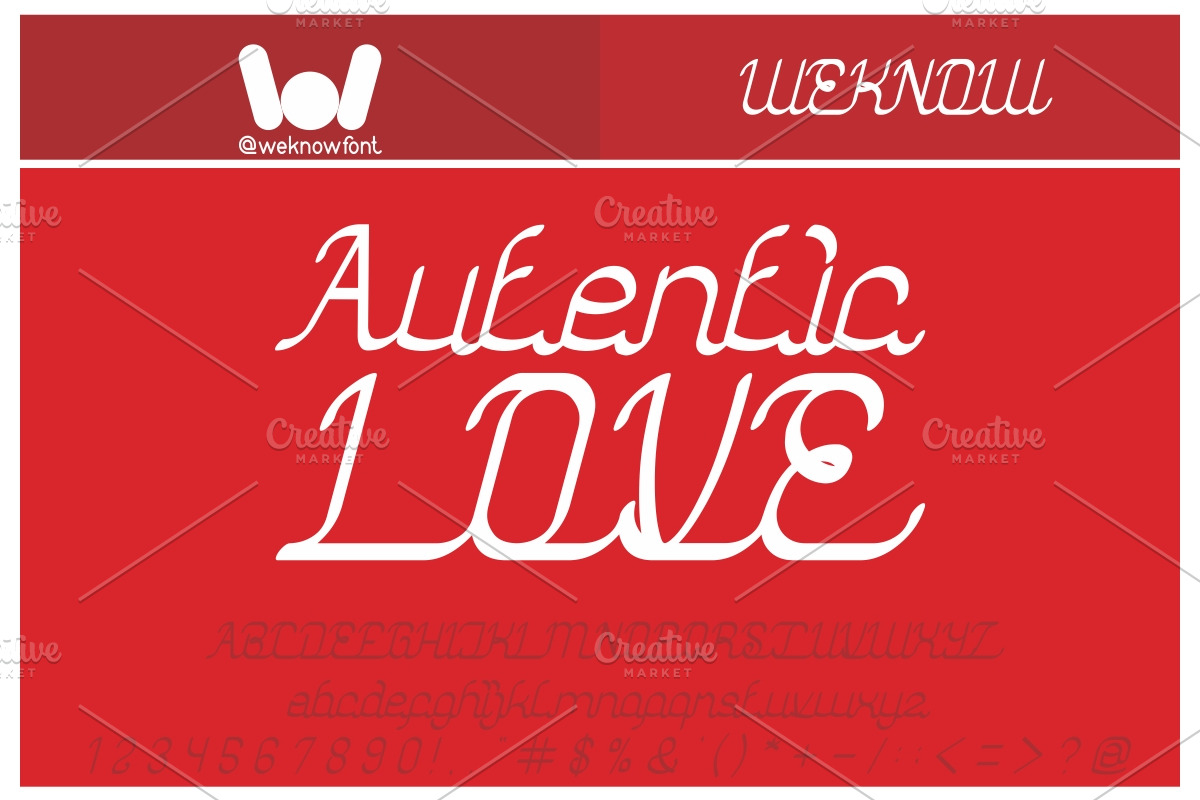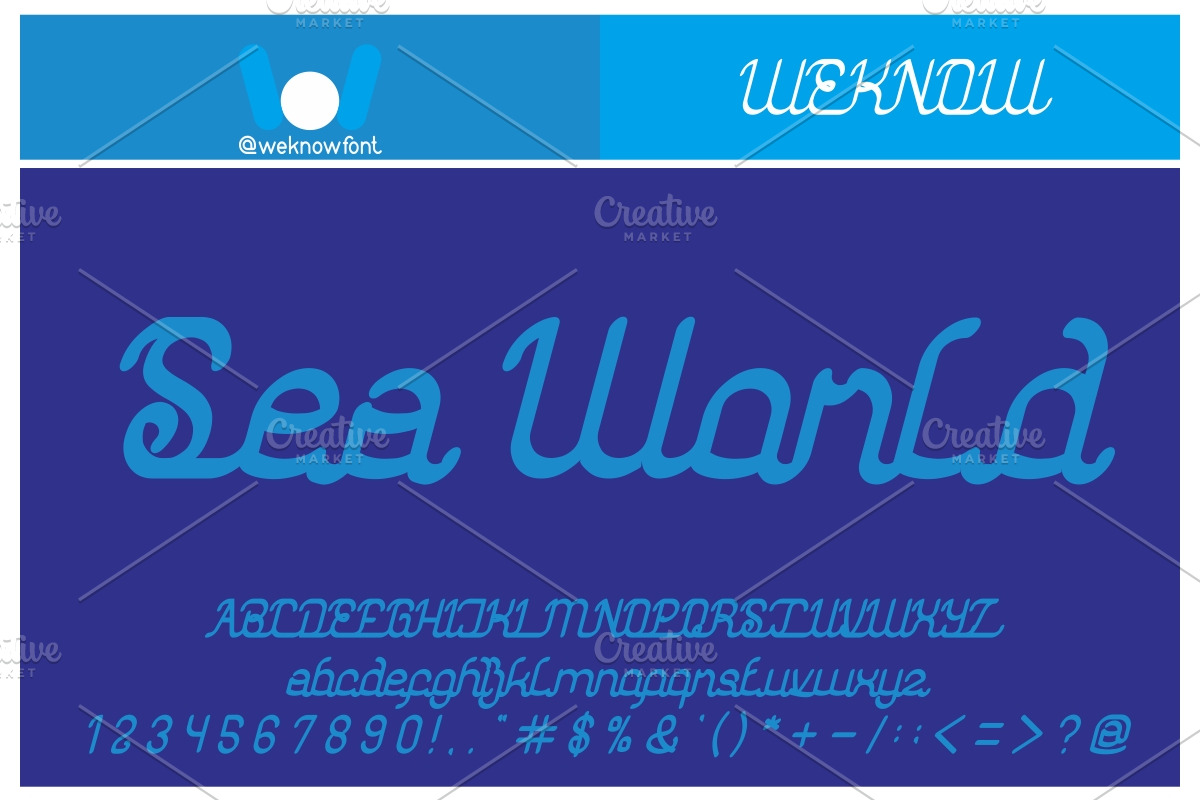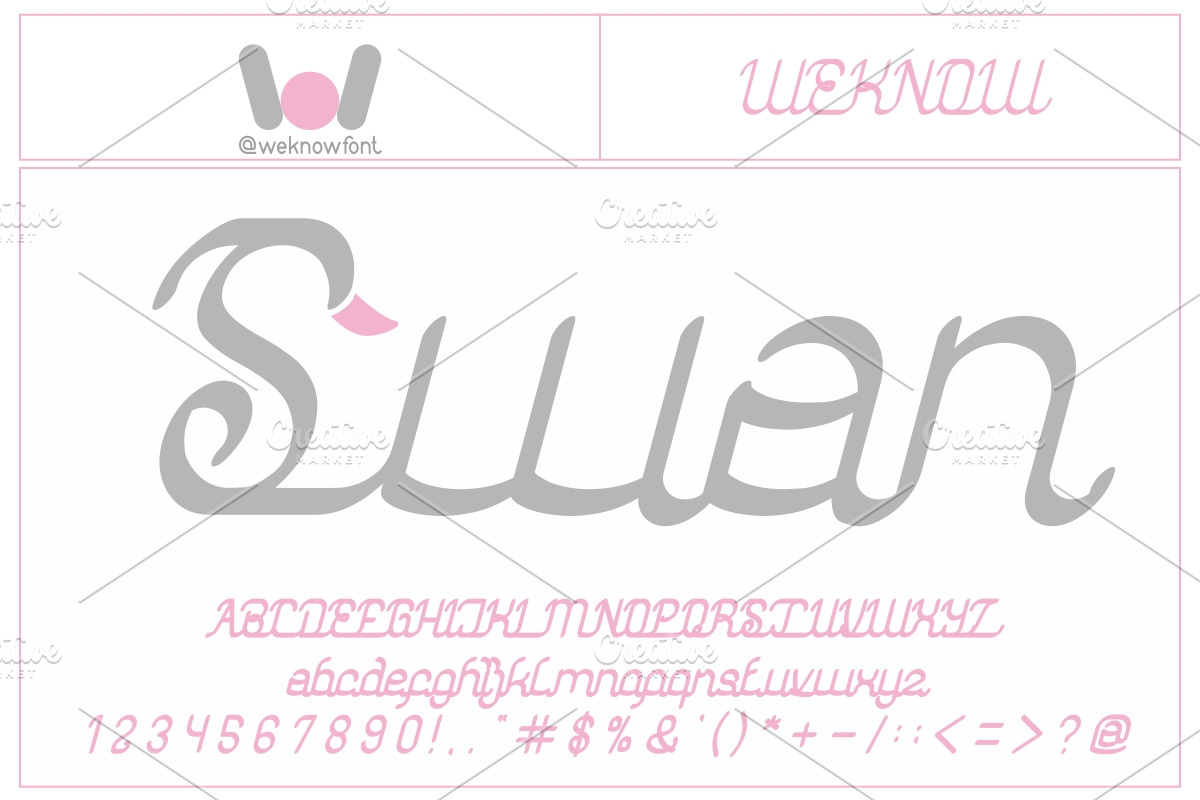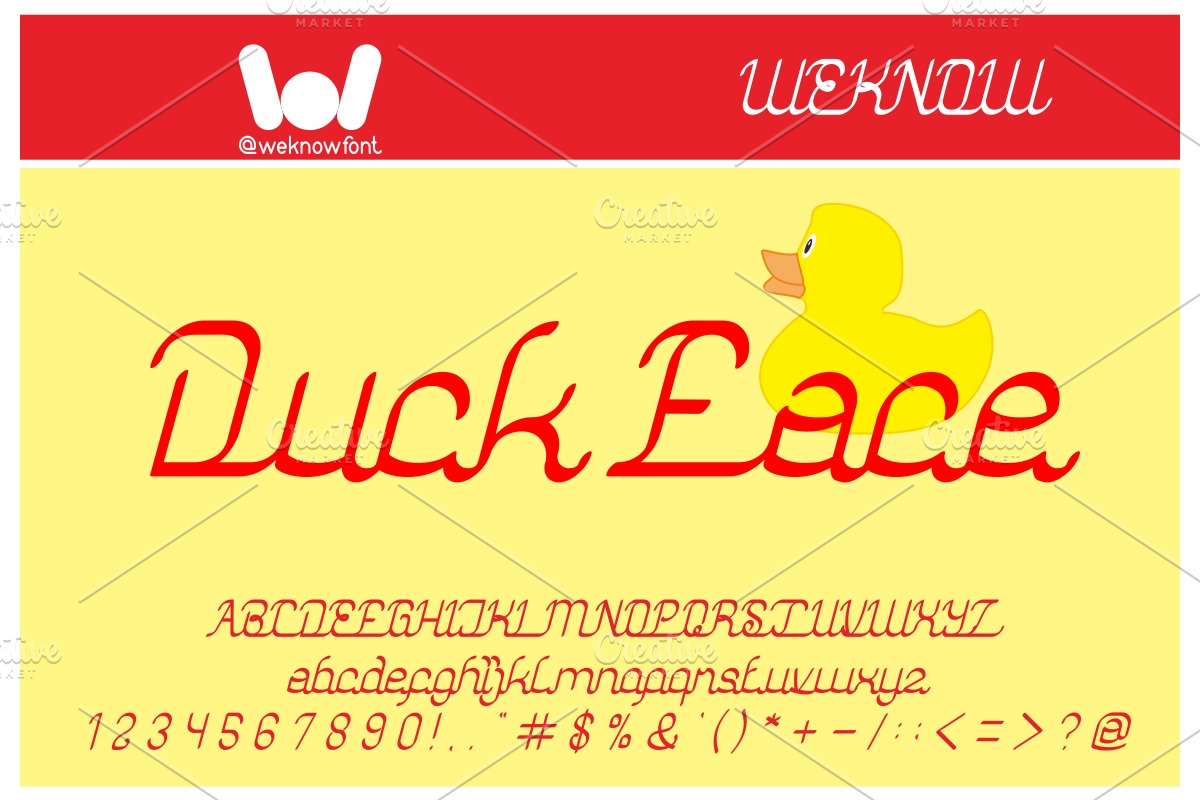
authentic love font
authentic love font by weknow is a font selected for branding, posters, packaging, typography.
Why authentic love font is worth a look
authentic love font by weknow fits naturally into Branding, posters, packaging, typography.